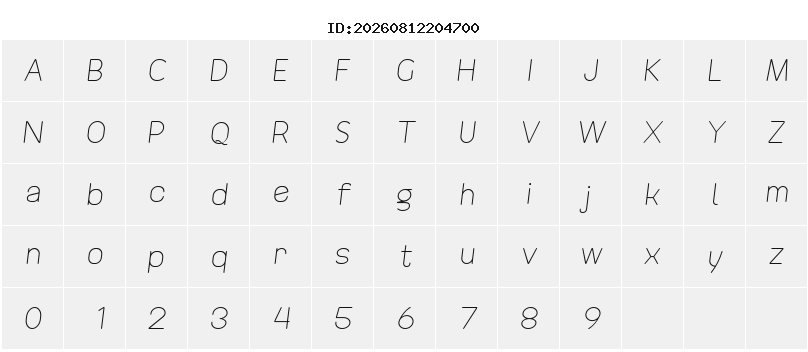
• Font Name: Revofit by Drakoheart
• Full Font Name: Revofit by Drakoheart - Delgada Diagonal
• Version: Versión 1.0 Diciembre 11, 2012, primera edición
• Designer: Yun González
About Revofit by Drakoheart.ttf
Revofit by Drakoheart.ttf is a modern, elegant sans-serif font designed for ultimate readability and visual harmony. Perfect for branding, headlines, web design, and print materials.